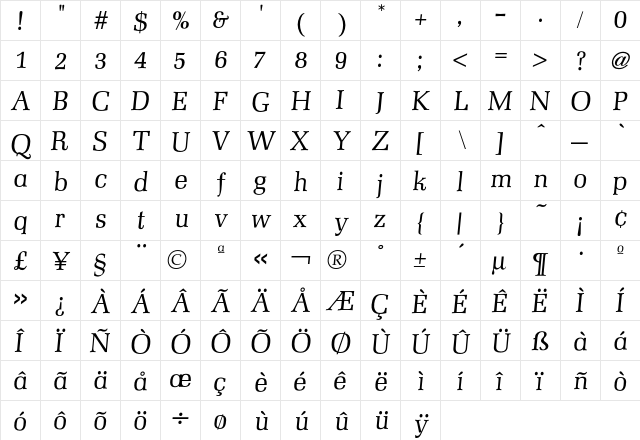
Mezzo Italic
Design Context for Mezzo Typeface
Mezzo is a composed and adaptable typeface that performs quietly and consistently across a wide range of design contexts. The slanted form adds forward momentum and visual energy.
Pro Tip: Use Mezzo for emphasis, pull quotes, and subheadings where its slanted energy can add rhythm to the layout.